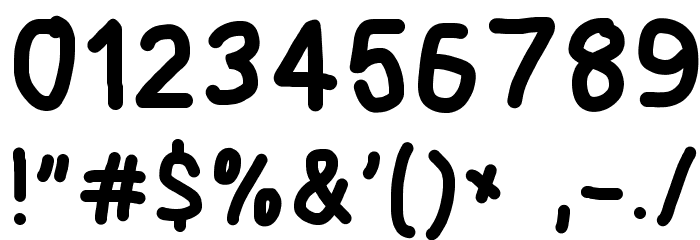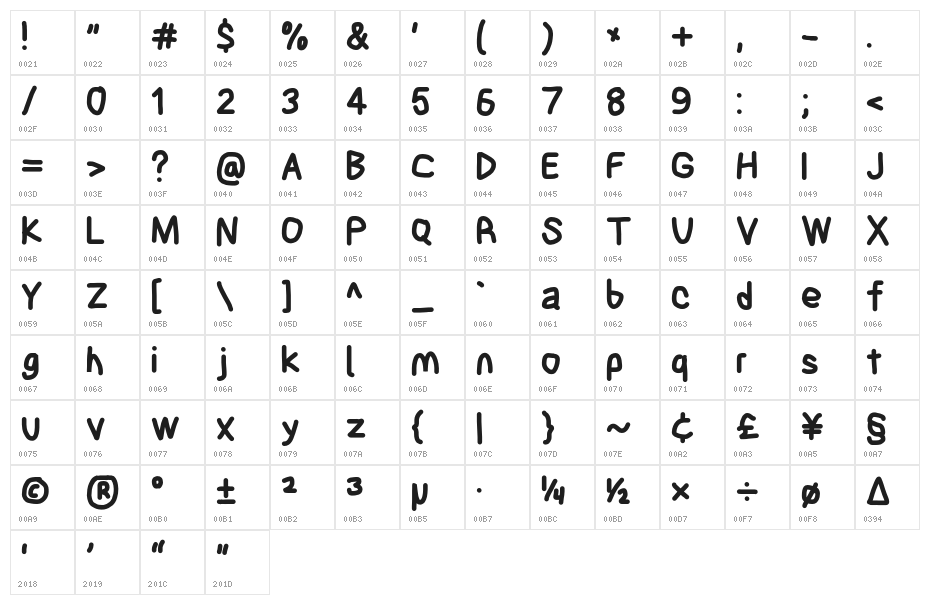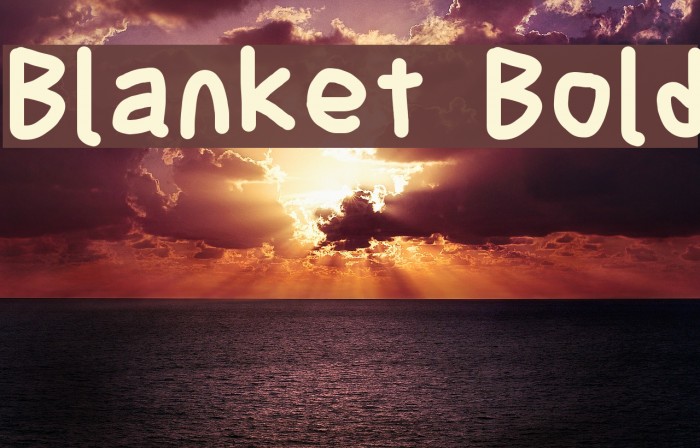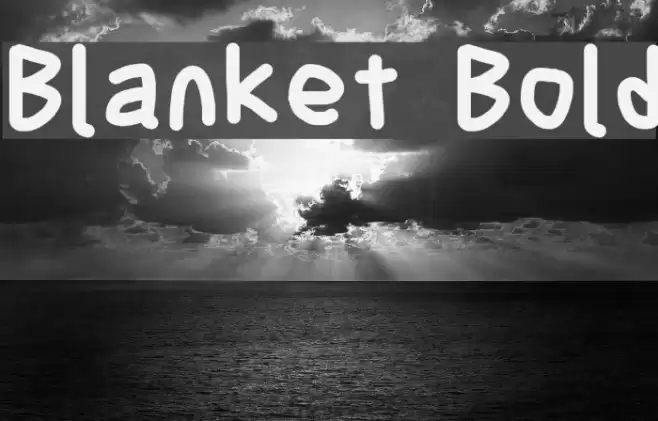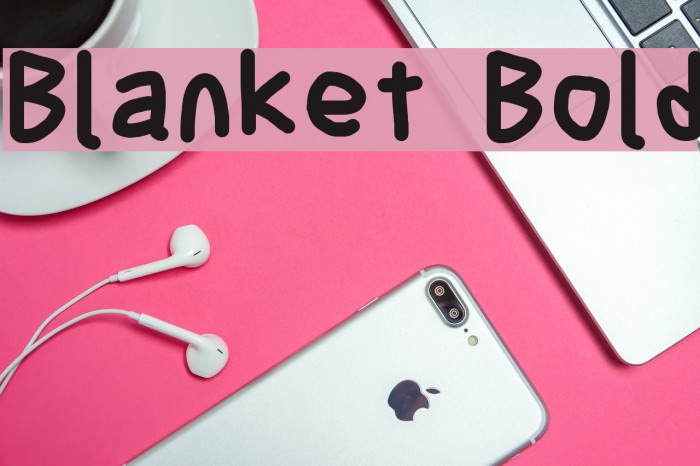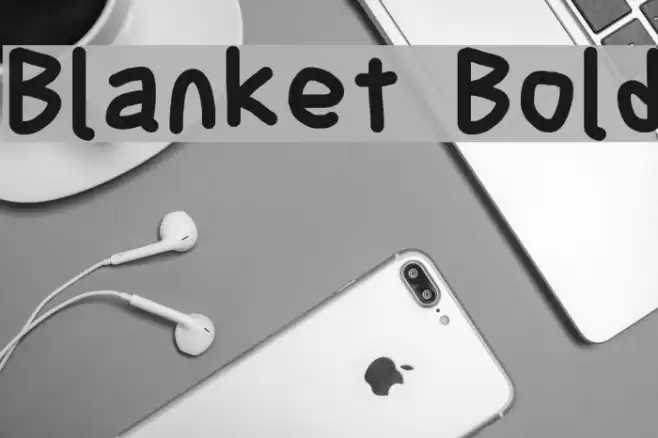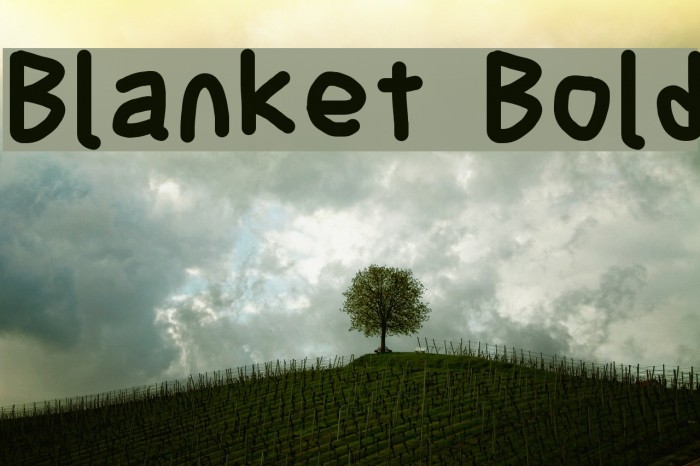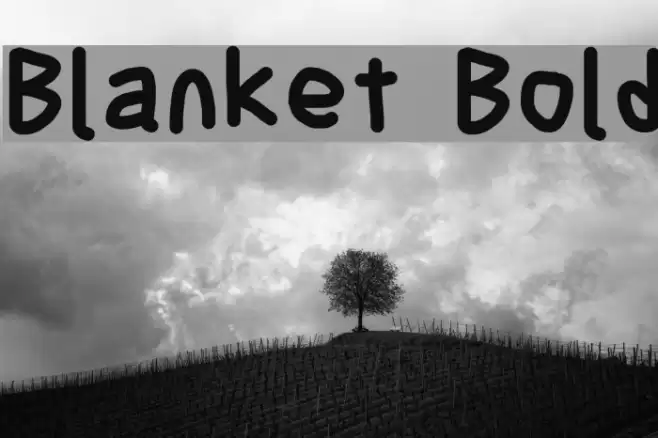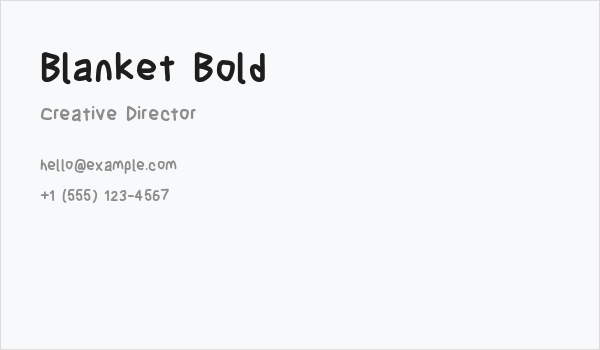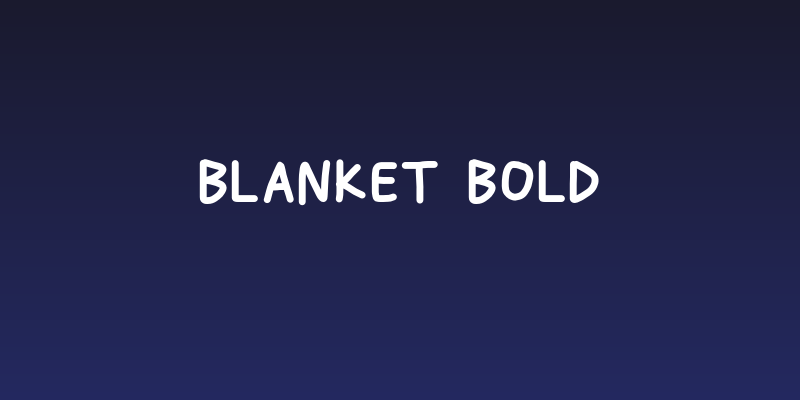
Blanket Bold Font
Blanket Bold Description
This font features a playful and bold design, characterized by its rounded and slightly irregular letterforms. The strokes are thick and consistent, giving it a strong presence on the page. The characters have a hand-drawn quality, adding a touch of whimsy and friendliness. This style is particularly effective for conveying a casual and approachable tone. The numerals and special characters maintain the same playful aesthetic, ensuring consistency across all text elements.